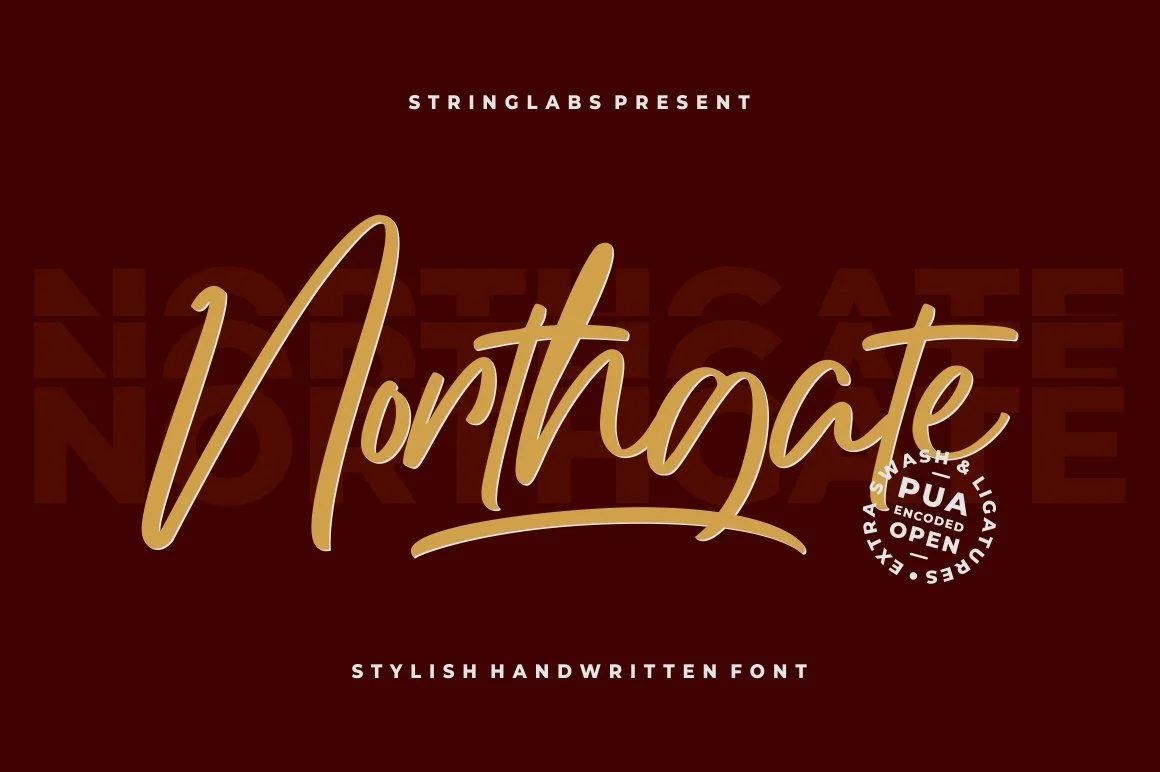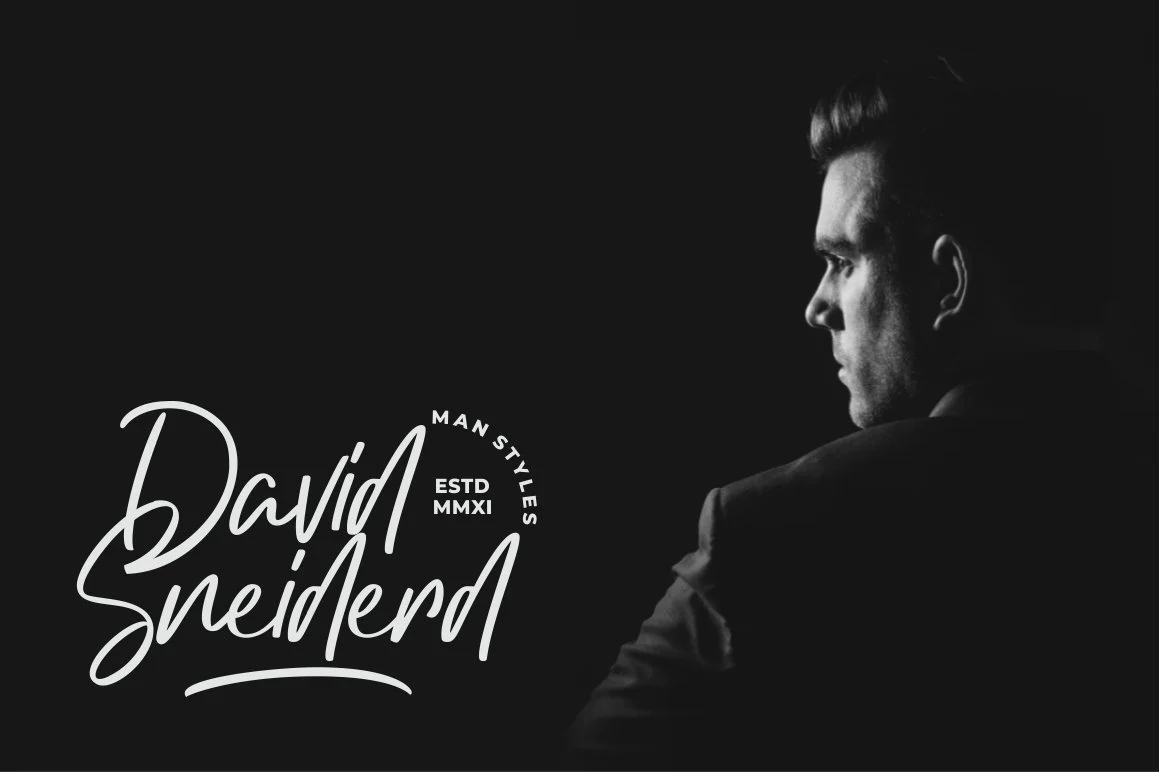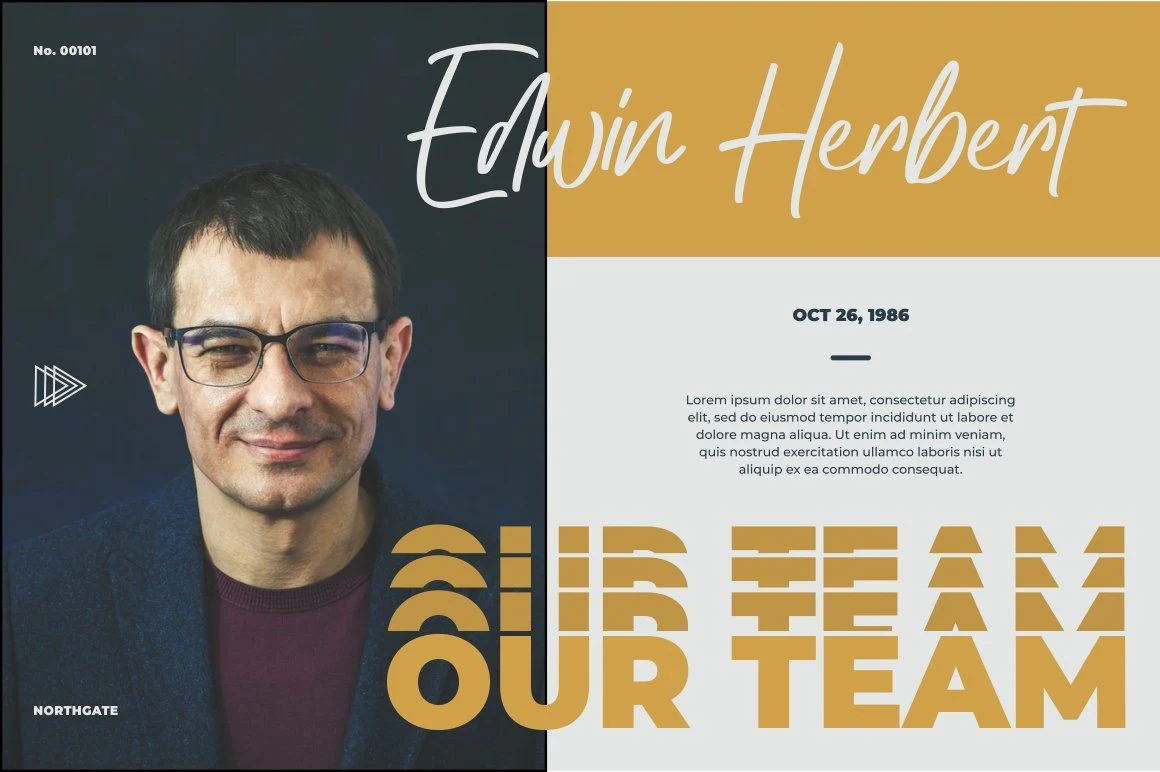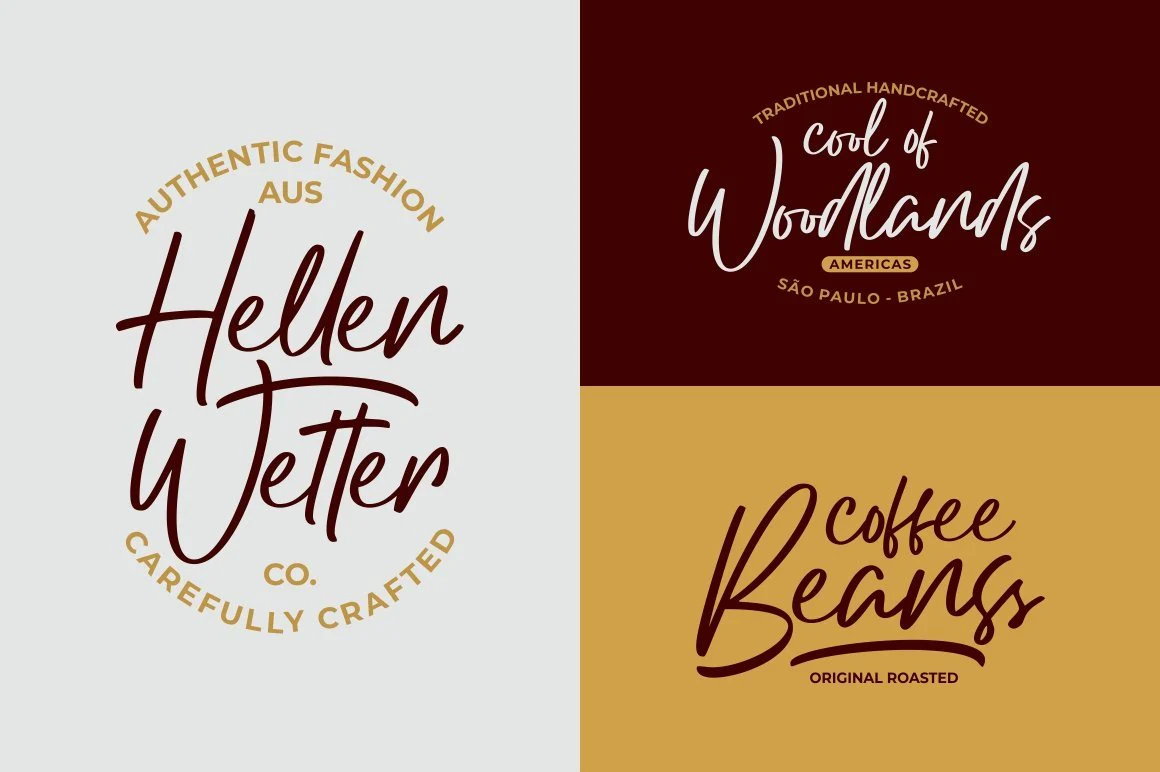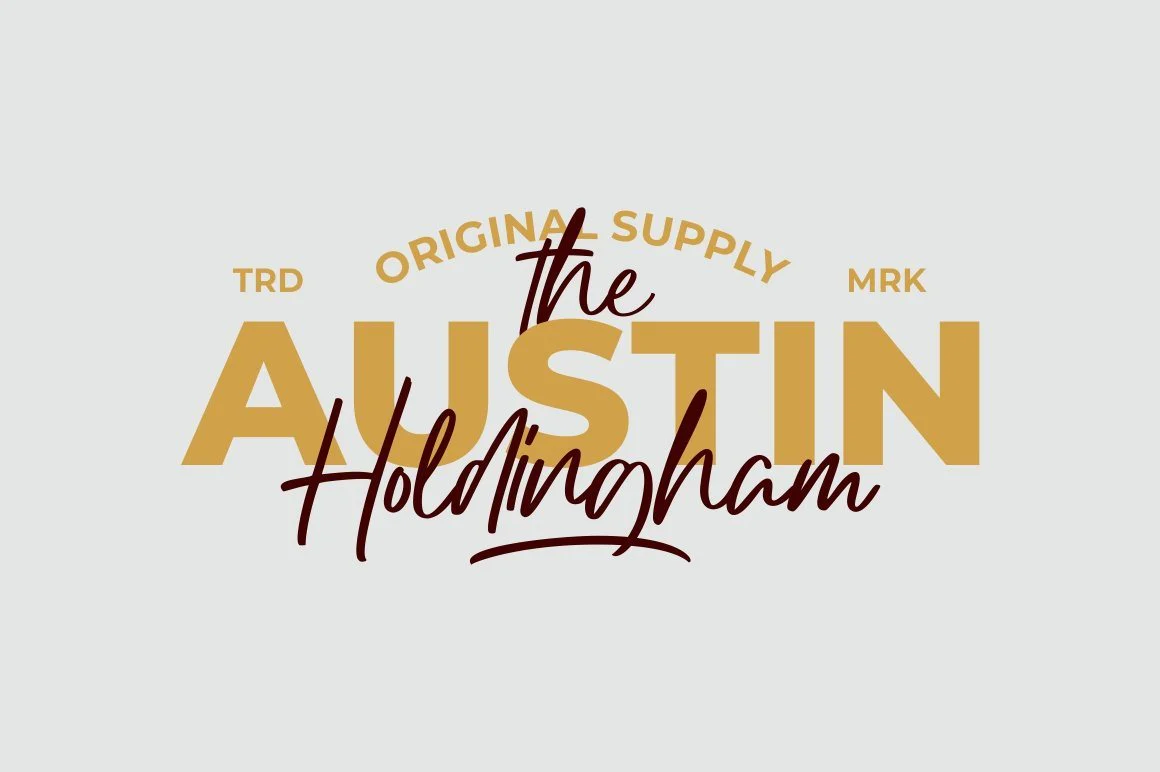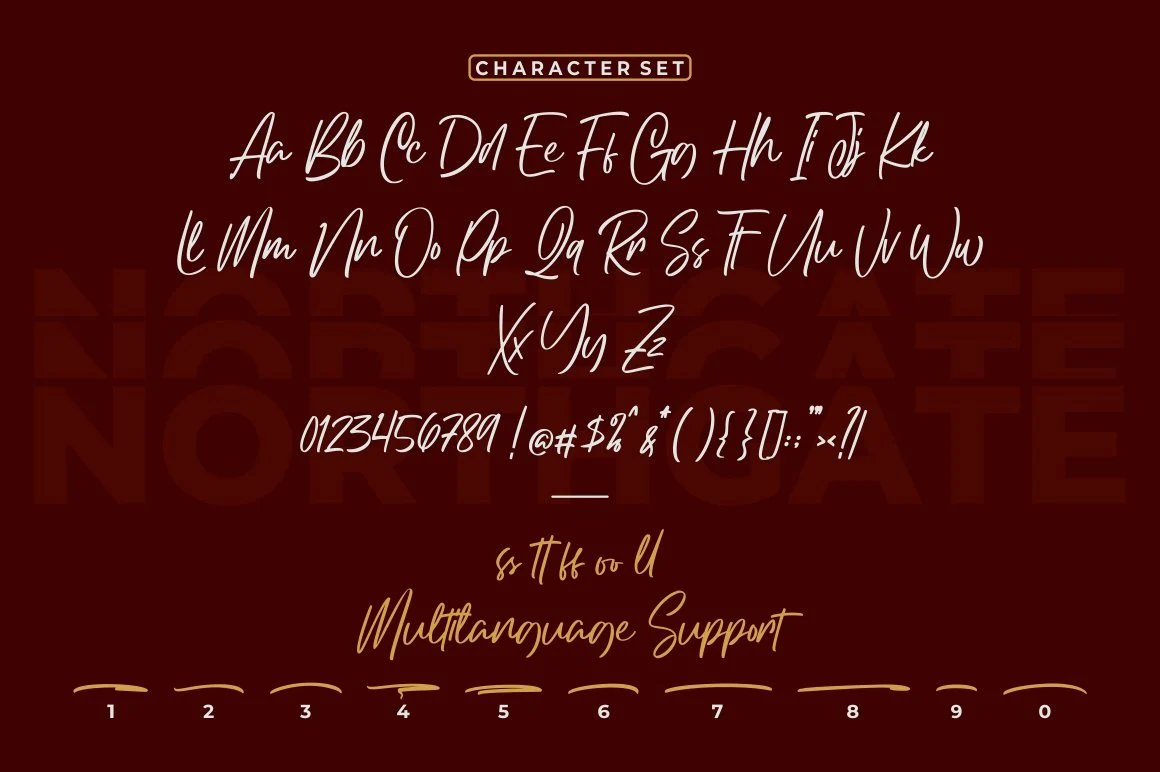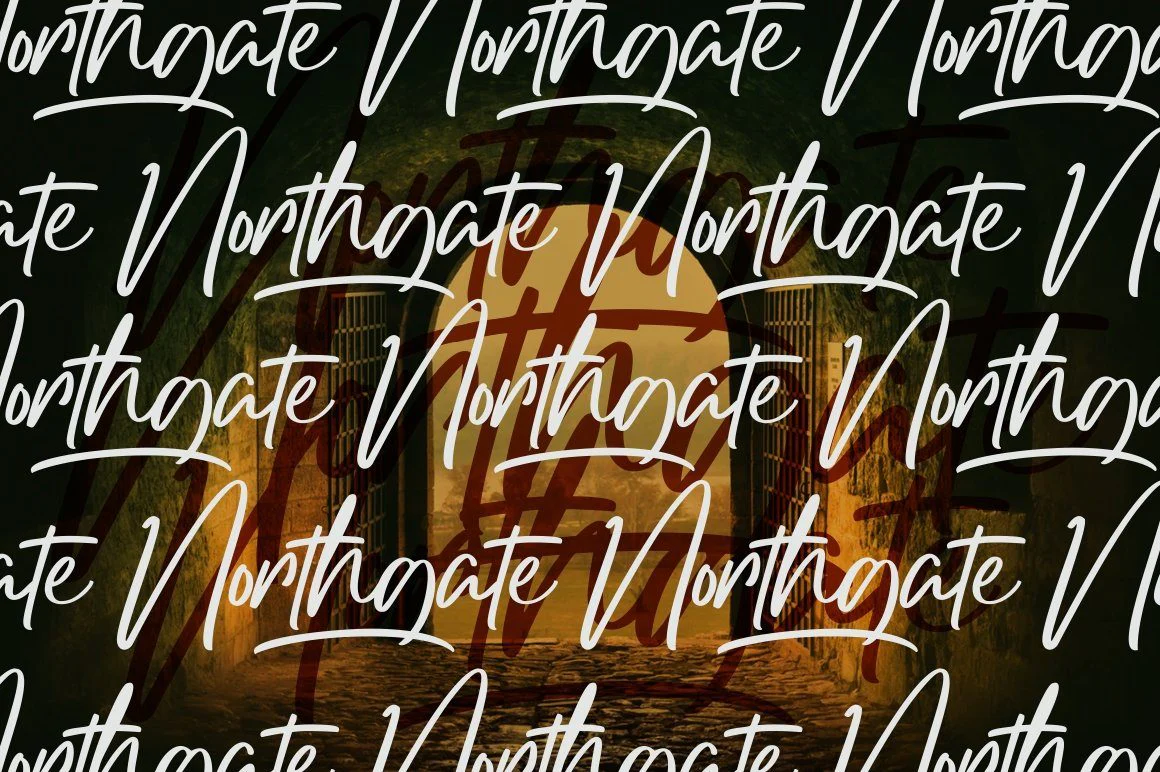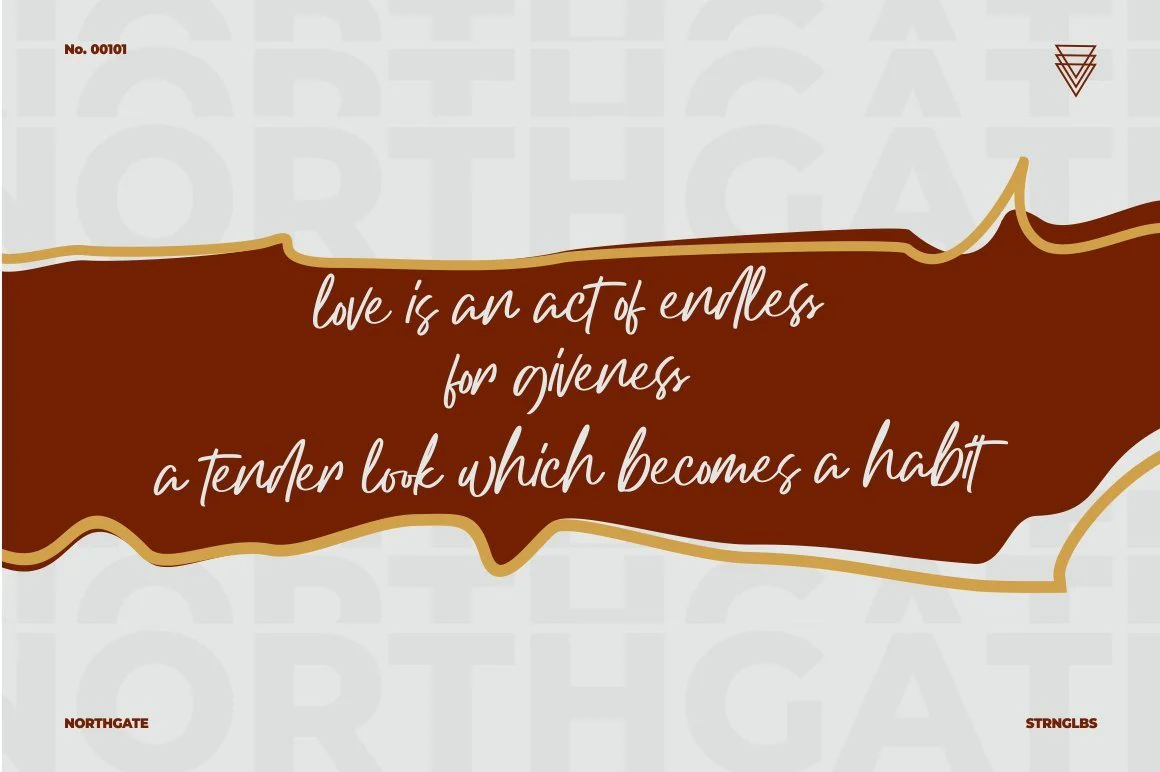
Northgate - Stylish Handwritten Font
Introducing Northgate - Stylish Handwritten Font
Northgate is made with a blend of trendy and stylish styles. This font was also created carefully. We made this font especially for those of you who like stylish script fonts. Northgate has an adventure, casual and creative concept.
- Swash
Introducing Northgate - Stylish Handwritten Font
Northgate is made with a blend of trendy and stylish styles. This font was also created carefully. We made this font especially for those of you who like stylish script fonts. Northgate has an adventure, casual and creative concept.
- Swash